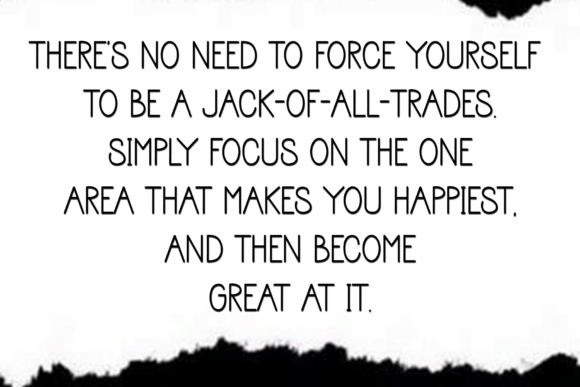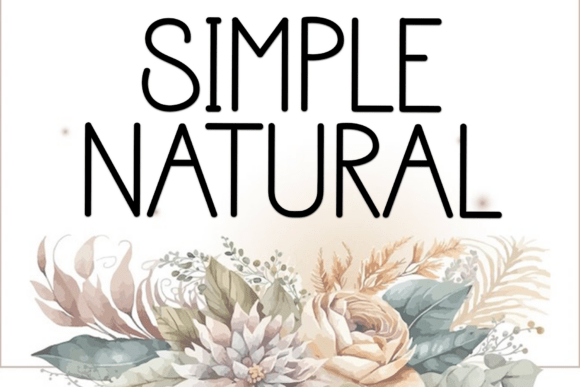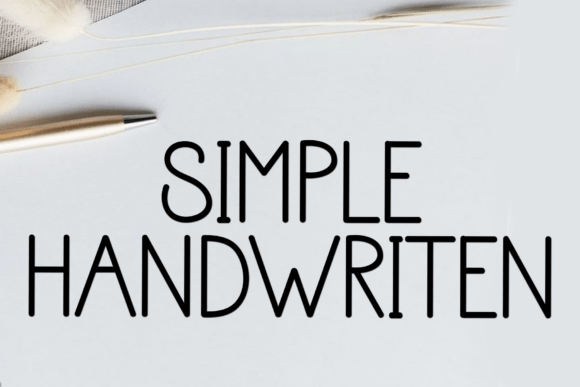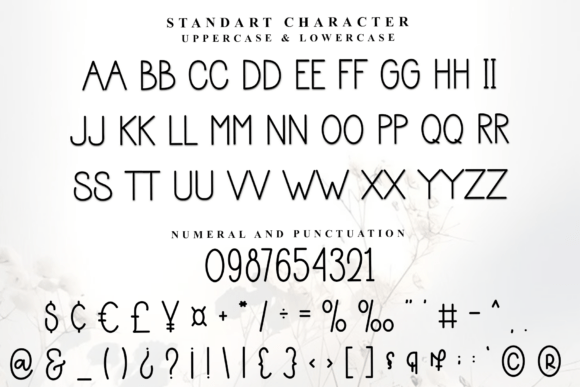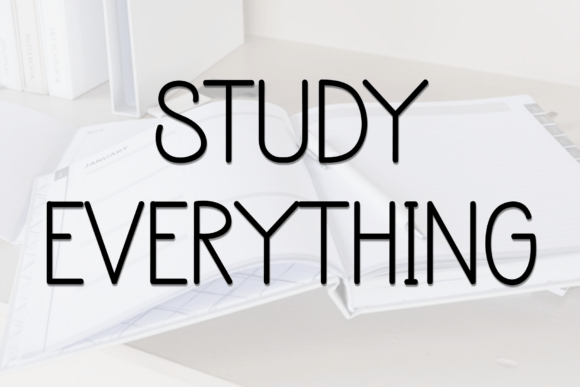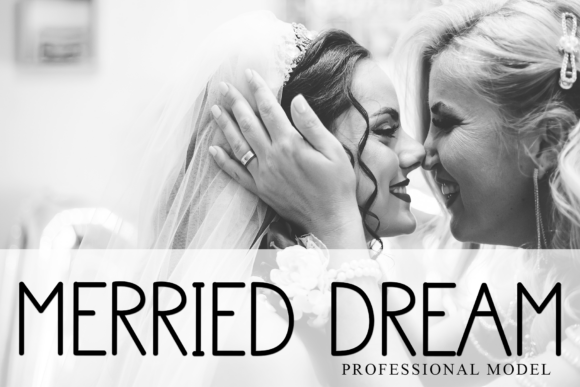
Mother Charming Font – Free Download
Introduction to Mother Charming Font
Mother Charming is a festive and merry typeface that captures the spirit of the holiday season.
Key Features of Mother Charming Font
Why Choose Mother Charming Font?